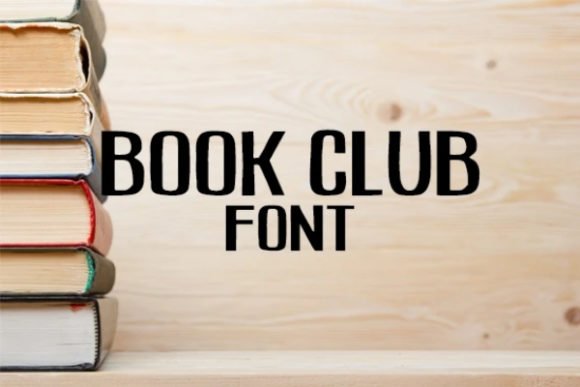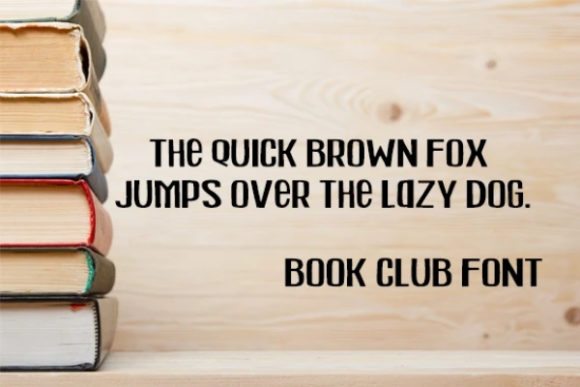
The Perfect Blend of Elegance and Strength: Book Club Font
Imagine you’re browsing through a library, surrounded by shelves upon shelves of dusty old books, and you stumble upon a particular novel that catches your eye. The cover is beautifully designed, with bold, playful typography that makes you want to dive in and start reading. This is the kind of creative moment that designers aim to recreate with their work, and one font that can help them achieve this is the Book Club Font.
Handcrafted with love and care, Book Club Font is a display font that’s perfect for creating eye-catching headlines and blocks of text. Its versatility makes it a valuable asset for designers, who can use it for a wide range of projects, from web design to print materials, and even motion graphics. With its unique blend of elegance and strength, Book Club Font is sure to make your designs stand out from the crowd.
- Unique Characteristics: Book Club Font features a distinctive, elegant design with subtle flair and flair marks, making it ideal for book titles, author names, and other literary applications.
- Font Style: The font comes in two styles: Book Club Font Regular and Book Club Font Italic, offering flexibility for designers to create visually appealing typography.
Book Club Font Review
As a designer, I’ve had the chance to work with a variety of fonts, and the “Book Club Font” is one of them. Here’s my honest review.
- The Book Club Font is highly legible, making it perfect for reading and text-heavy content.
- It has a classic, timeless feel that’s reminiscent of traditional book club materials.
- The font’s x-height is well-balanced, making it easy to read at different sizes.
- The font may not be as versatile as some other fonts, making it better suited for specific niches like book clubs or literary events.
- It may not have as many weight options as some other fonts, which could limit its use in certain designs.
- The font’s style may not appeal to everyone, so it’s essential to consider your target audience when using it.
The Book Club Font is a solid choice for designers who need a classic, readable font for specific niches. While it may have some limitations, it’s a great option for projects that require a traditional feel. Overall, I’d give it 3.5 out of 5 stars.
The Book Club font is ideal for creating a cozy and inviting atmosphere, making it perfect for book-related designs, such as book covers, reading challenges, and literary-themed events.
For optimal results, use the Book Club font in combination with warm colors and soft textures to create a comforting and engaging visual experience.